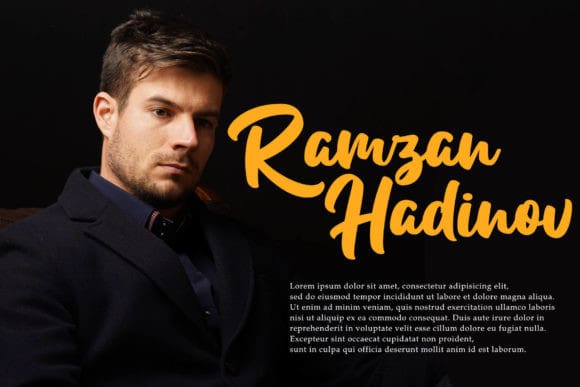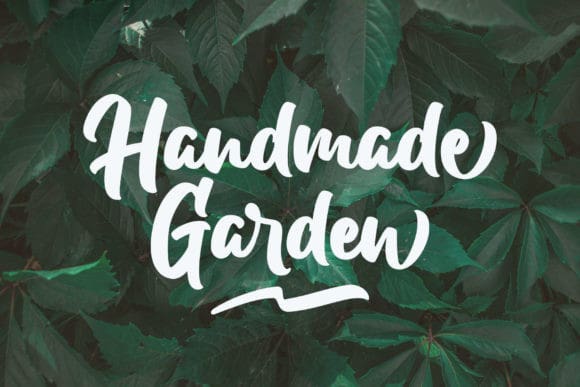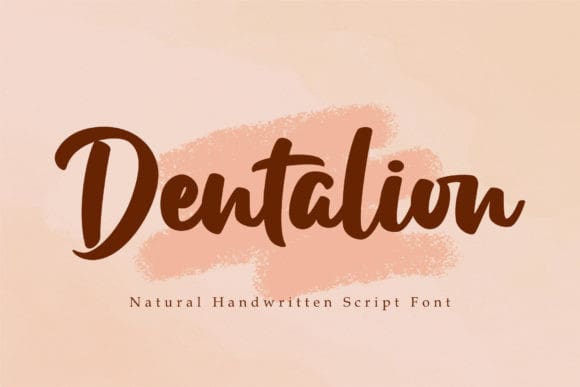
Dentalion Script Font
Dentalion Script Font is a lovely paint brushed script font. It has a beautiful and balanced character, that fits well with the large design pool. This font is PUA encoded which means you can access all of the glyphs and swashes with ease.